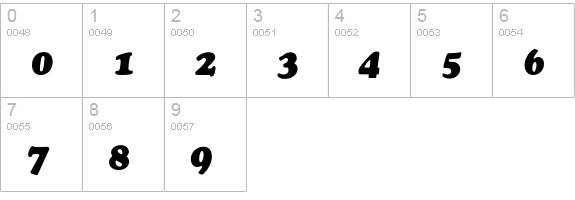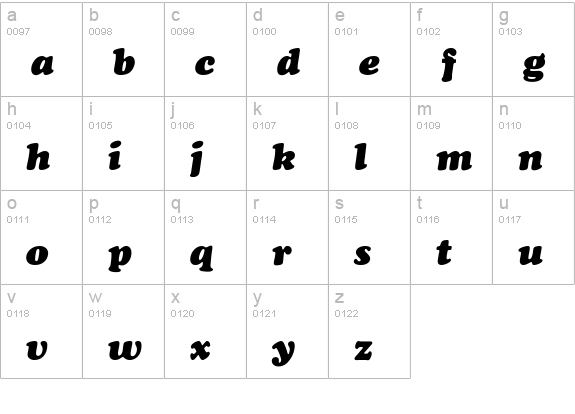
Chacey-Heavy-Italic is a heavy, high-impact, italic variant in the Chacey typeface family \xE2\x80\x94 well suited to high-impact headlines, posters, and display advertising.
Chacey-Heavy-Italic font is a bold and stylish typeface that exudes confidence and sophistication. Its heavy weight and italic design make it perfect for creating impactful headlines, titles, and logos. The unique letterforms of Chacey-Heavy-Italic add a touch of elegance and modernity to any project. What's even better is that Chacey-Heavy-Italic font is available for free download at FontsMarket.com. This means you can easily add this eye-catching font to your design arsenal without any cost. Whether you're working on a branding project, advertising campaign, or any other creative endeavor, Chacey-Heavy-Italic font is sure to make a statement. Don't miss out on this opportunity to enhance your designs with this stunning typeface!